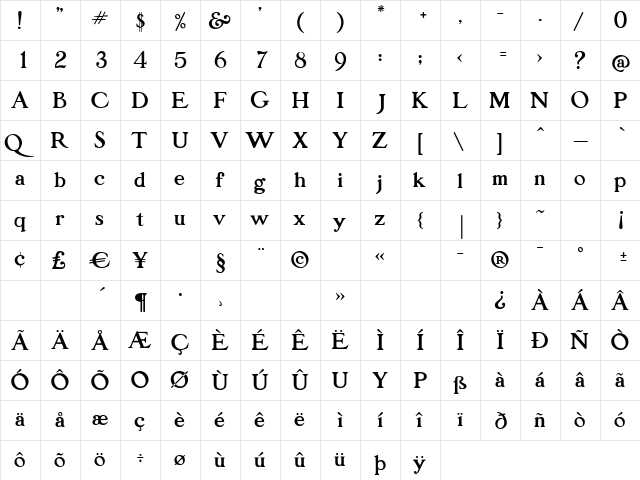
P22 Parrish Roman
Design Context for P22 Parrish Typeface
P22 Parrish takes a measured approach to typography — its balanced proportions and neutral character make it a reliable workhorse for both digital and print work.